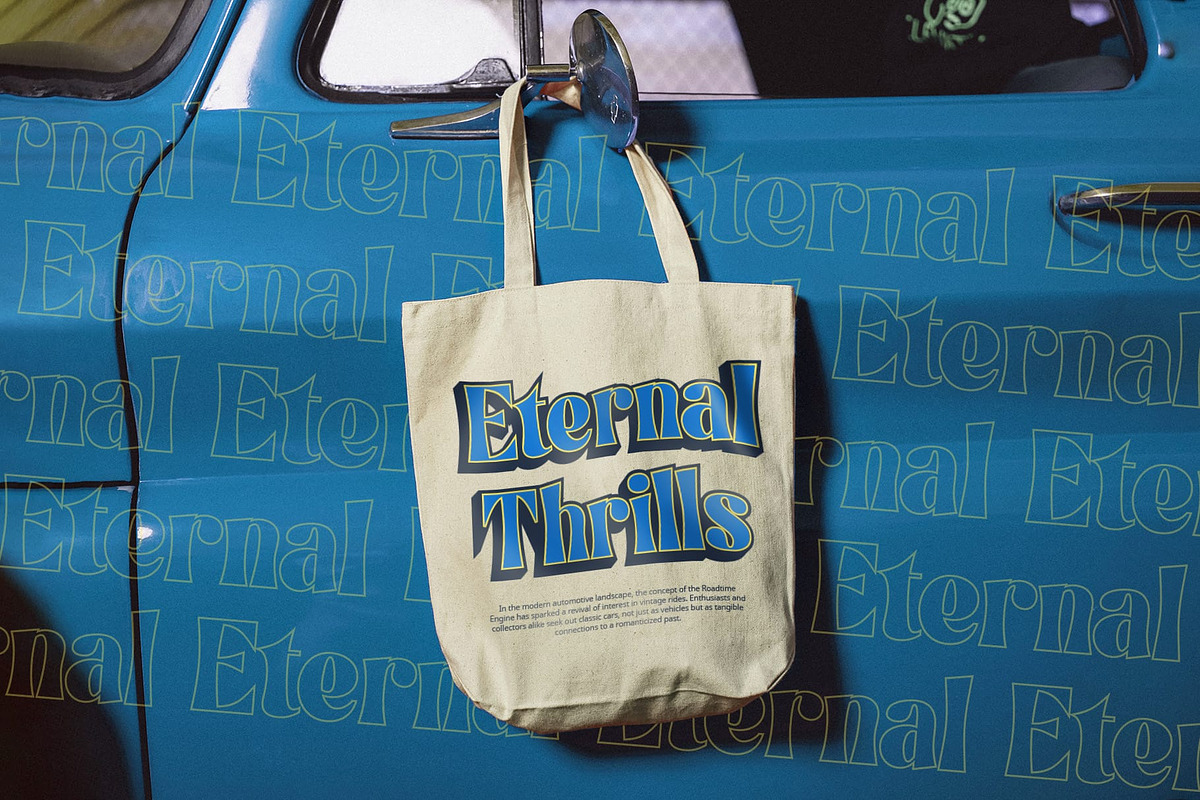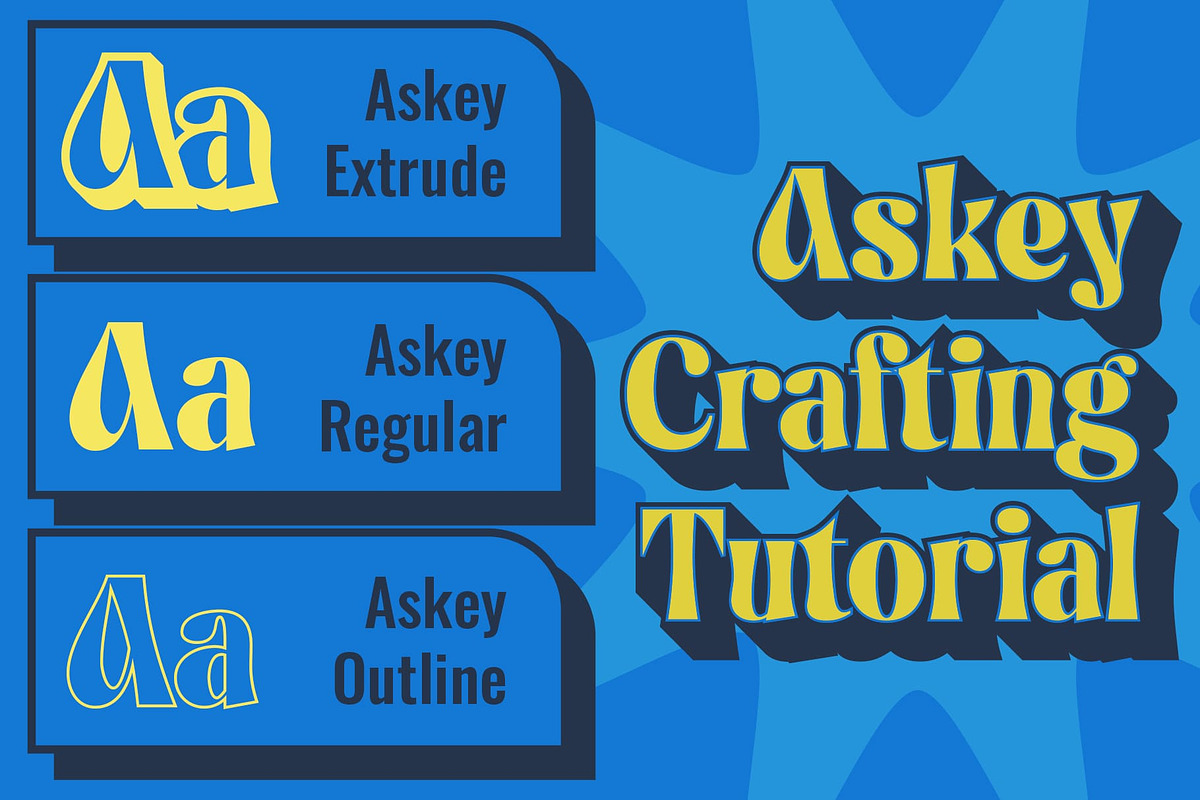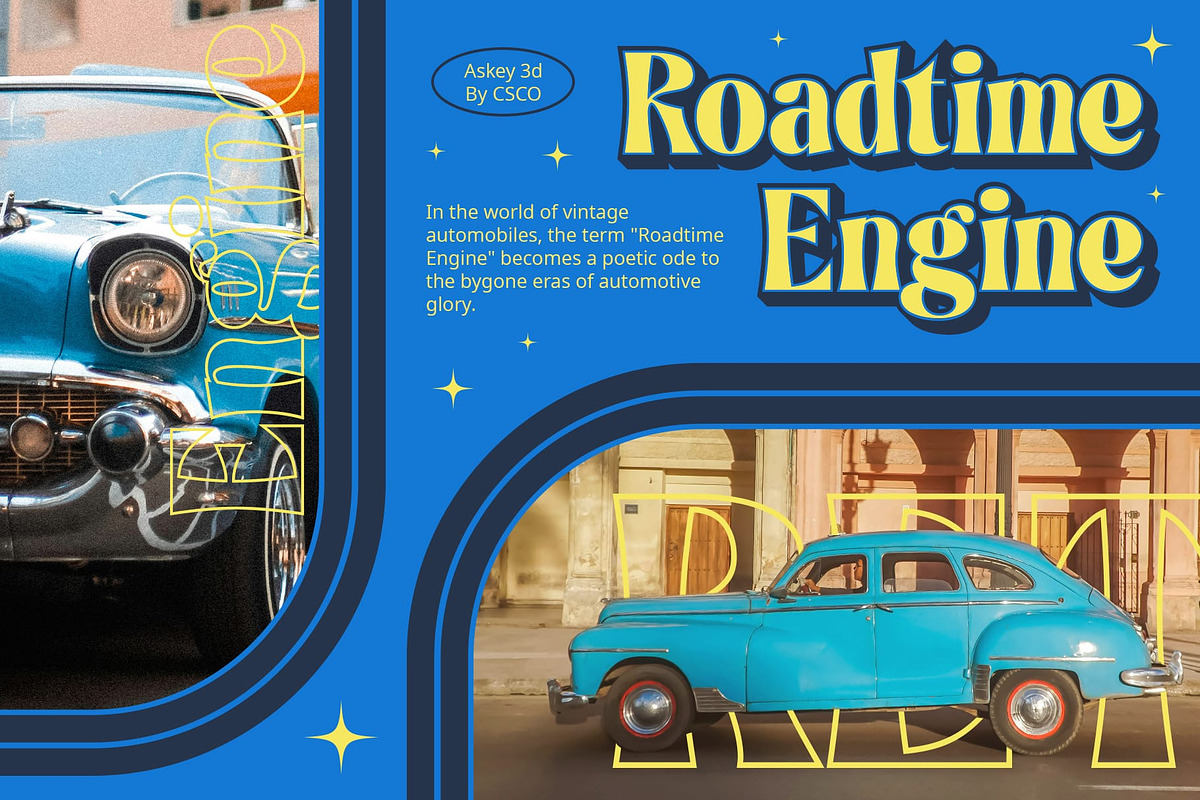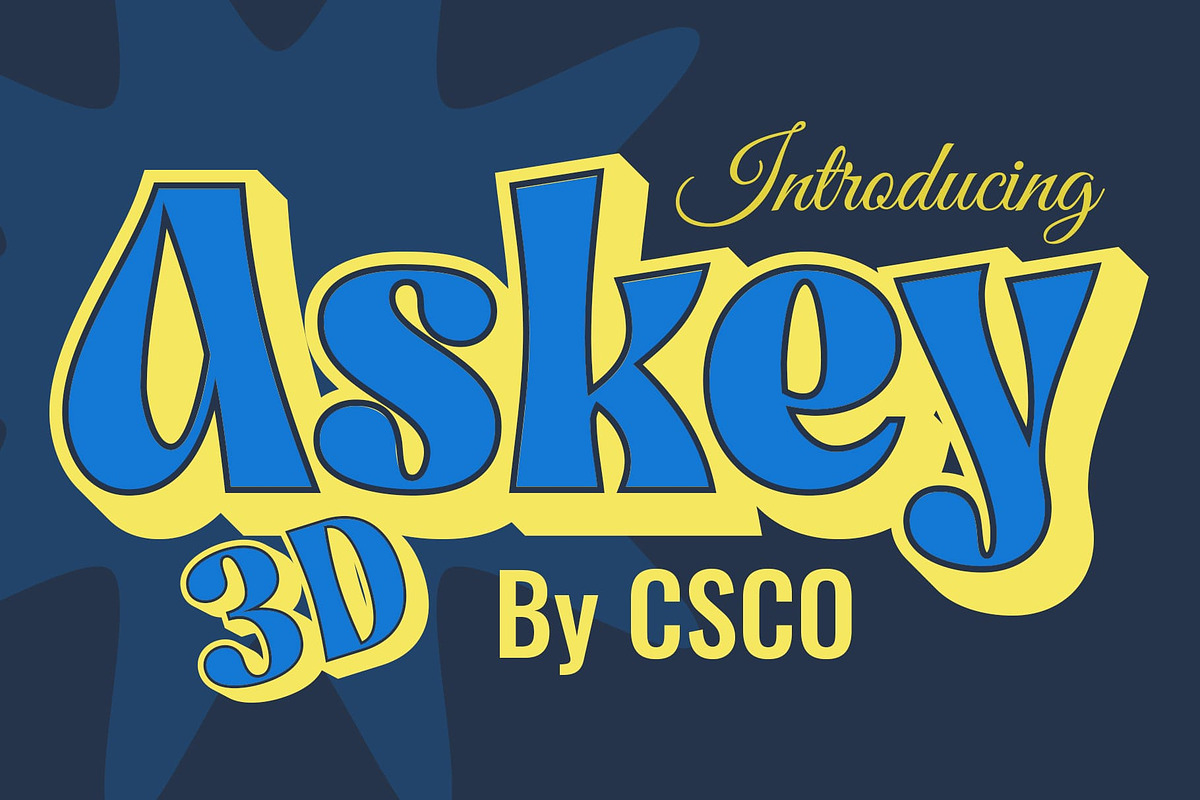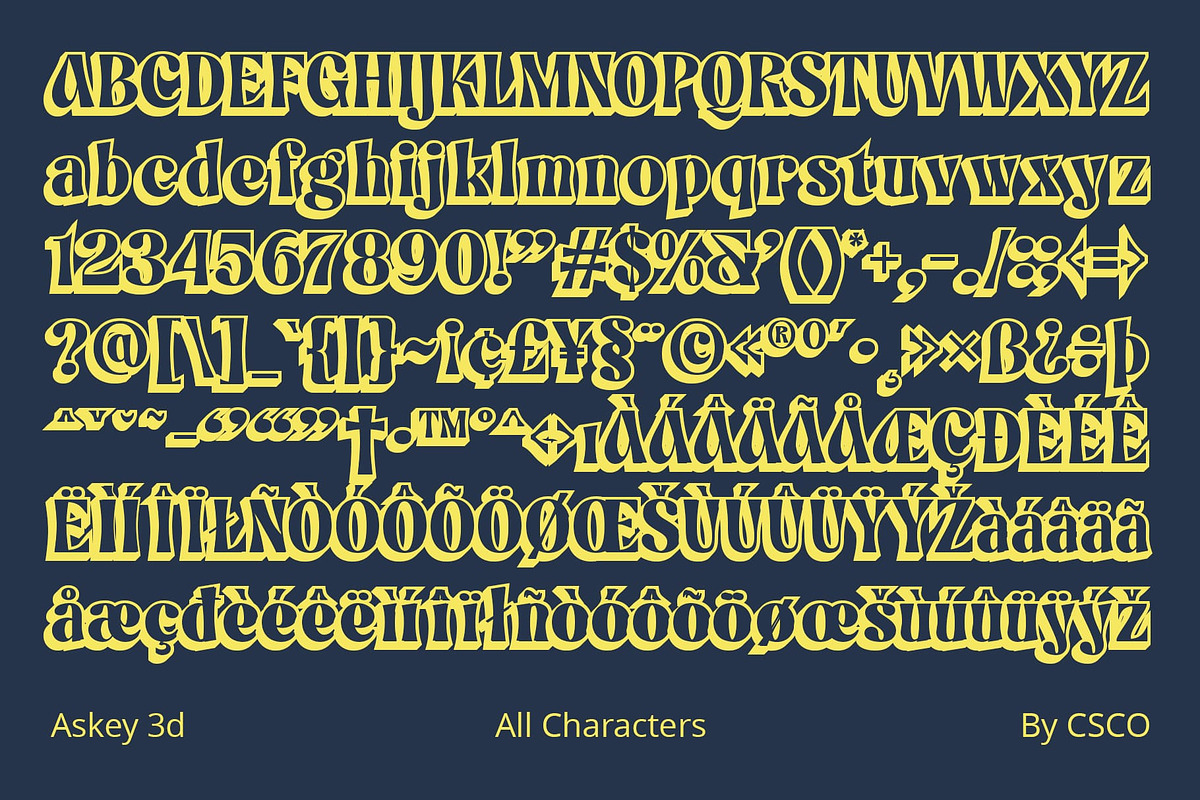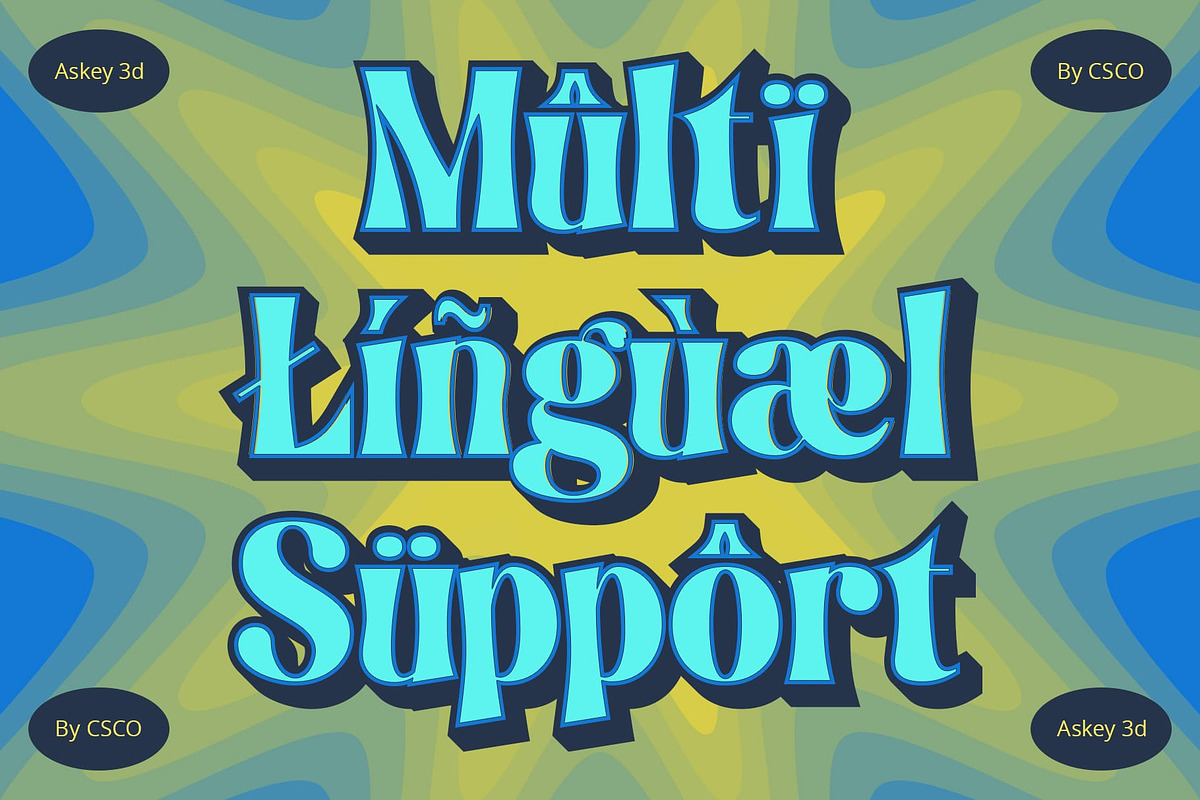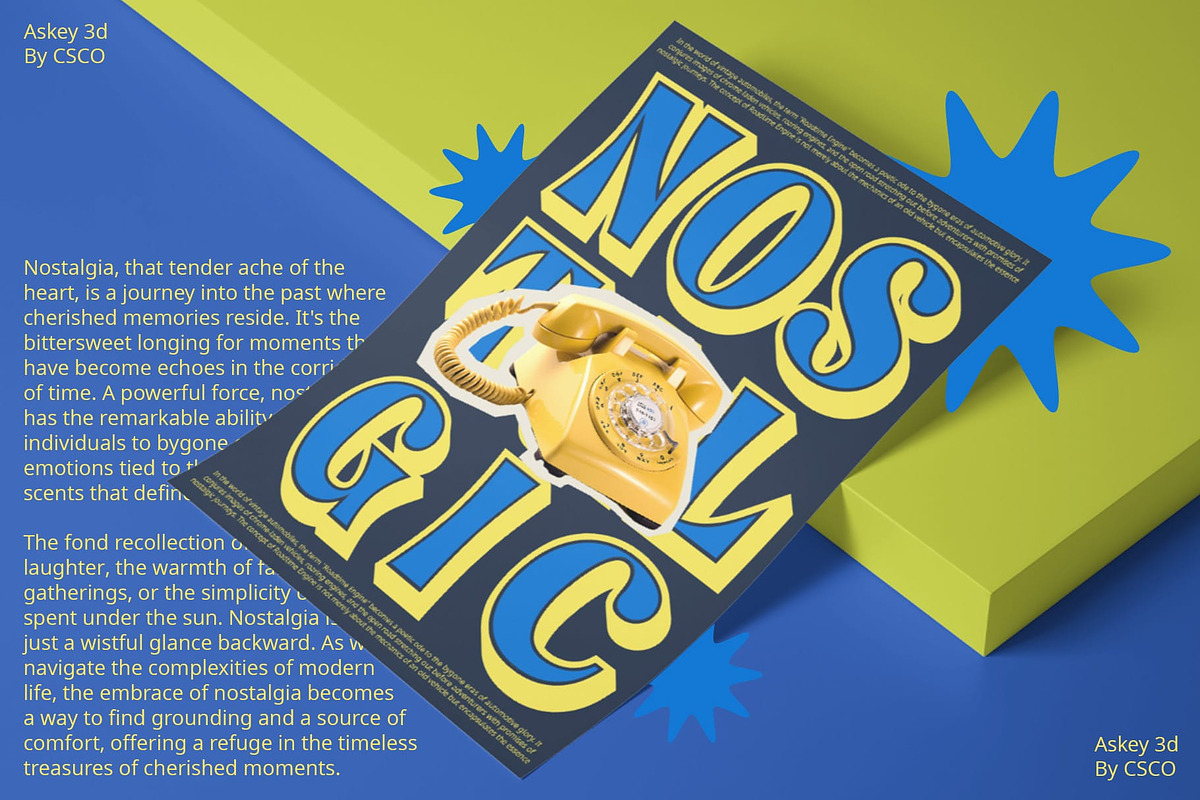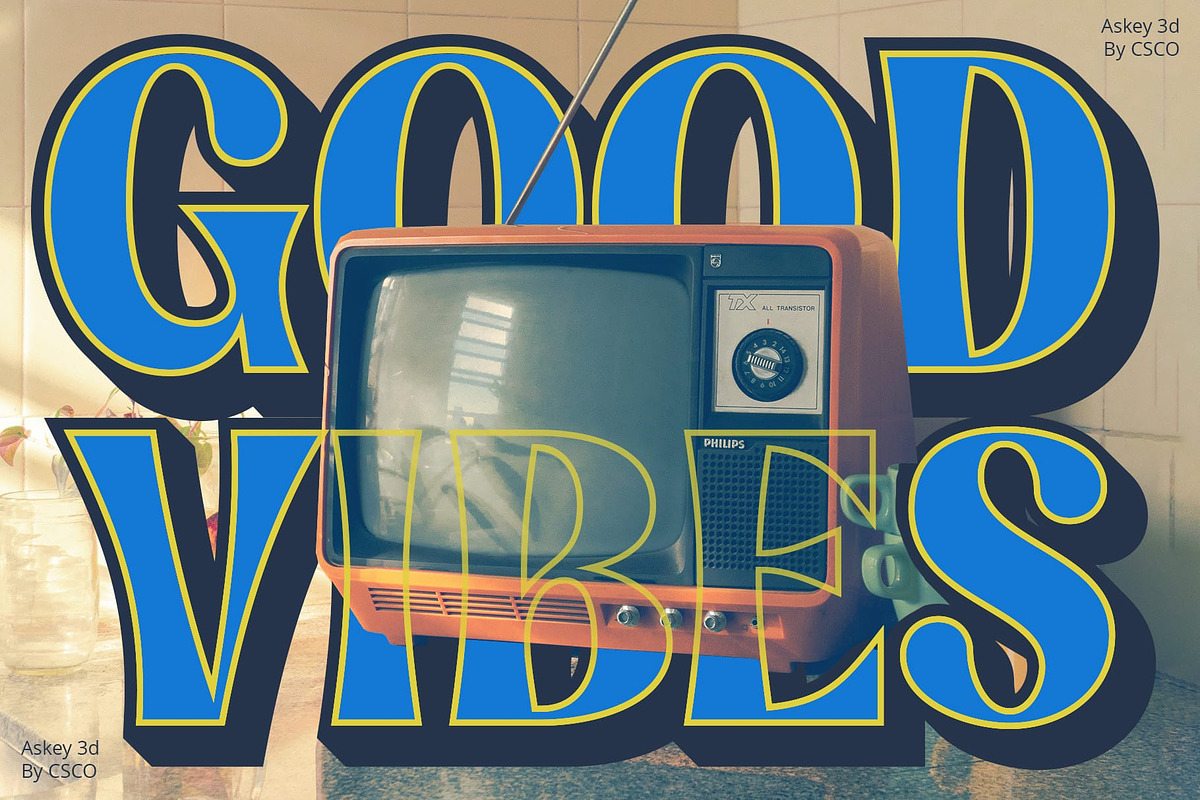
Askey 3D
Askey 3D Font: Funky Fusion of Style and Depth
Vibrant Funkiness in Typography Askey 3D, a dynamic display font, introduces a vibrant and funky fusion of styles that transcends the ordinary.
Thrilling 3D Effects Immerse your designs in a thrilling dimension with Askey 3D. This font doesn’t just display characters; it breathes life into them, thanks to its captivating 3D effects.
Bold and Playful Incorporate a bold and playful vibe into your projects effortlessly. Askey 3D brings a sense of joy and excitement, making it an ideal choice for designs that demand attention.
Versatility Unleashed Whether it’s posters, banners, or branding materials, Askey 3D is your versatile companion. Its funky charm adapts seamlessly to various design needs, offering a fresh perspective.
Conclusion Askey 3D isn’t just a font; it’s a creative adventure. Elevate your designs with the lively fusion of funkiness and 3D effects, creating a visual experience that captivates and delights.